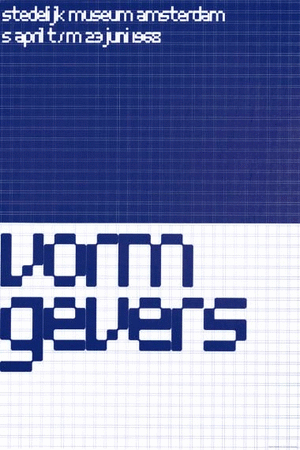
• Inspired by the mitic Stedelijk Museum poster from the great Wim Crouwel (and similar other fonts, I like specially igorrossi's perfect "Crouwel's Stedelijk Alphabeth", http://fontstruct.com/fontstructions/show/219501).
My own version of a mitic alphabet. Inspired by the seminal Stedelijk Museum poster from the great Wim Crouwel (and similar other fonts, I like specially igorrossi's perfect "Crouwel's Stedelijk Alphabeth", http://fontstruct.com/fontstructions/show/219501). A tribute to all the Typographers.
i dont know. but i love this so much. Its futuristic!
@elmoyenique - As big of a fan of the "Stedelijk" design, I'm not sure how I missed this one...  :^(  Regardless, there is always time for congratulations, and this certainly deserves it!  :^)